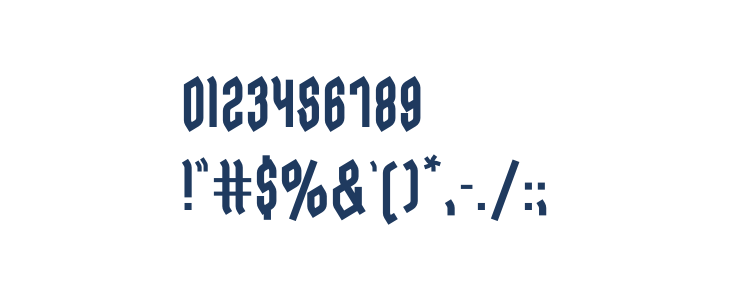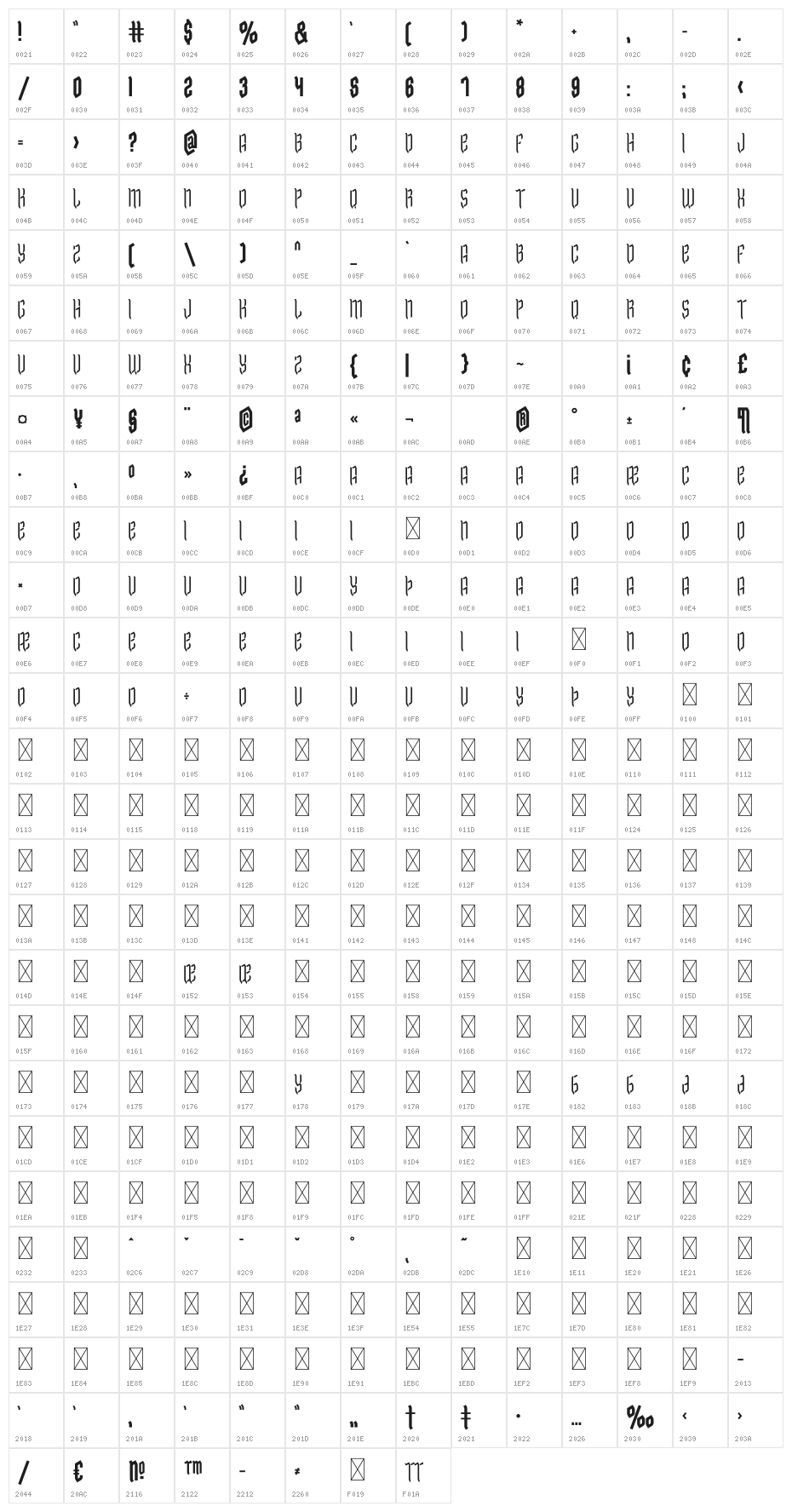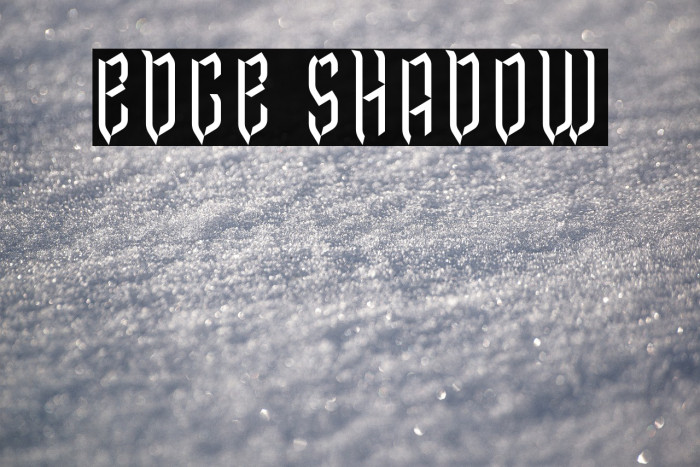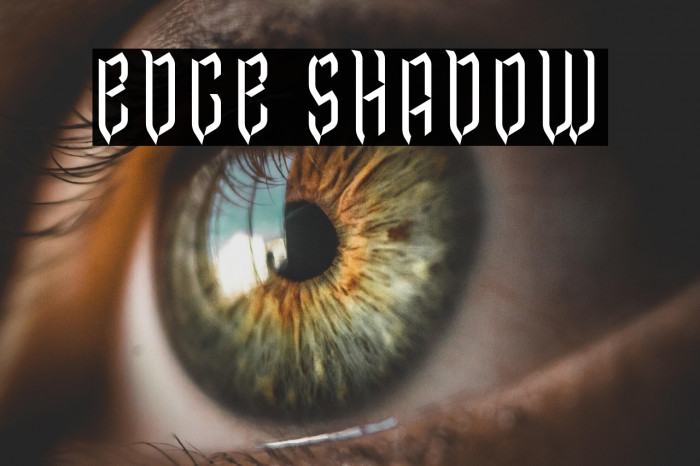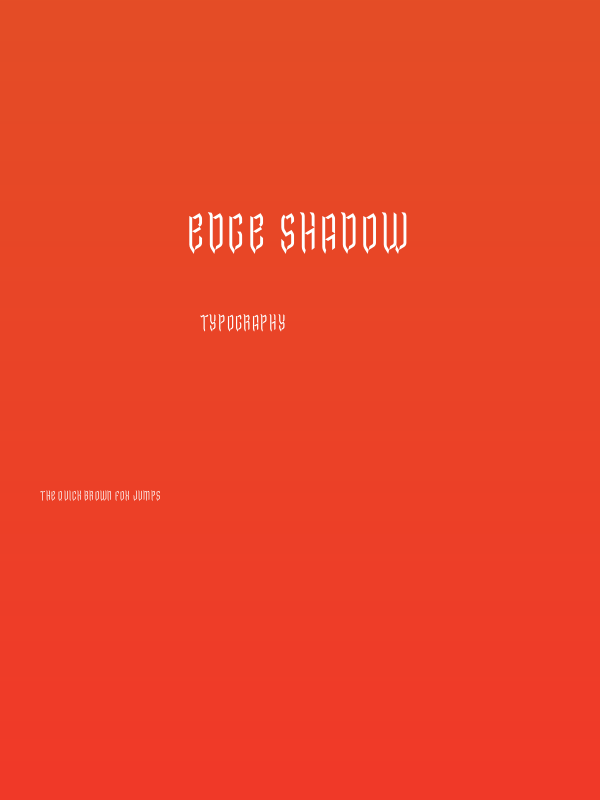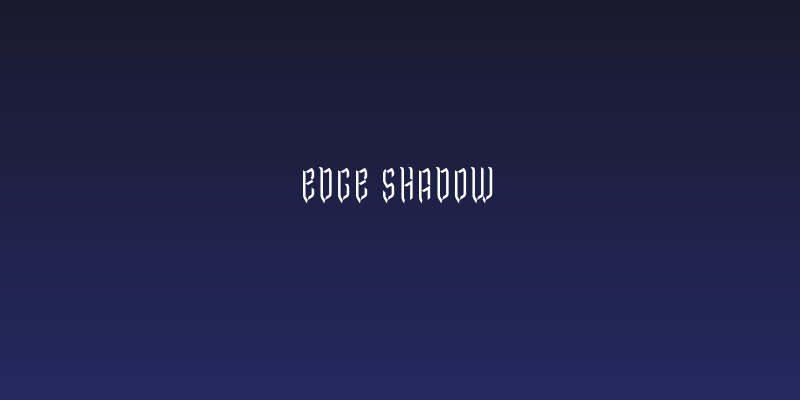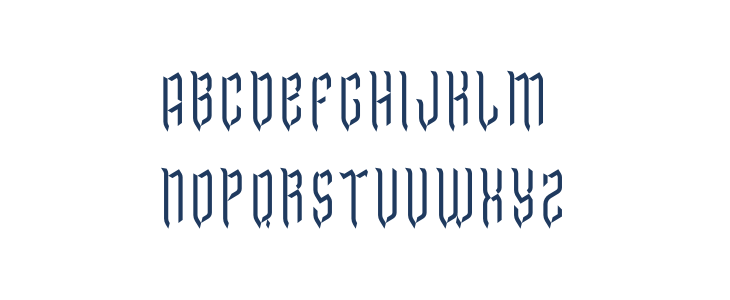
Edge Shadow Font
Edge Shadow Description
This font features a bold and striking design with sharp, angular edges that give it a distinct, shadowed appearance. The uppercase letters are tall and narrow, with a consistent height that creates a uniform look. The numbers and special characters maintain the same boldness and angular style, ensuring cohesion across all characters. The font's unique shadow effect adds depth and dimension, making it stand out in any design. Its geometric and structured form is reminiscent of Gothic or Blackletter styles, yet it maintains a modern twist with its clean lines and sharp angles.
| Width | Condensed |
| Overall Style | Modern, Gothic |
| Proposed Projects | Ideal for projects requiring a dramatic and eye-catching typeface, such as posters, album covers, or branding for edgy or alternative products. |